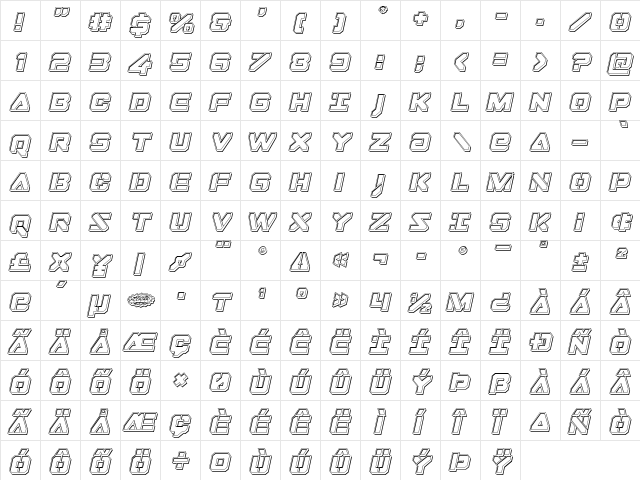
Domino Jack Engraved Italic Italic
Design Context for Domino Jack Engraved Italic Typeface
Domino Jack Engraved Italic is built around its visual character rather than neutral utility — its distinctive forms are designed to make an impression at display sizes. The dynamic lean of this cut emphasises speed and emphasis in any layout.
Font Pairing: Pair with a clean neutral sans-serif for body copy to let Domino Jack Engraved Italic's character lead without overwhelming the composition.
Pro Tip: Use Domino Jack Engraved Italic exclusively at display sizes — it was designed to be seen, not read at length. Let a neutral companion handle body copy.